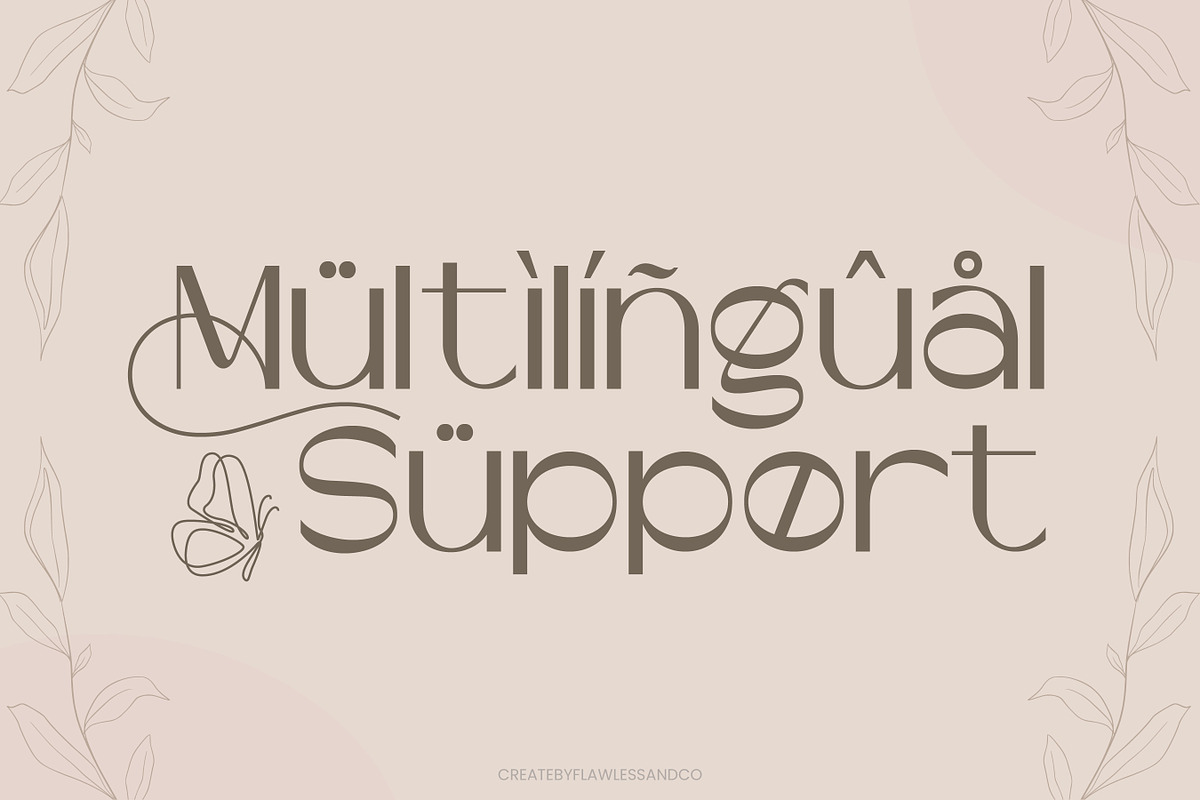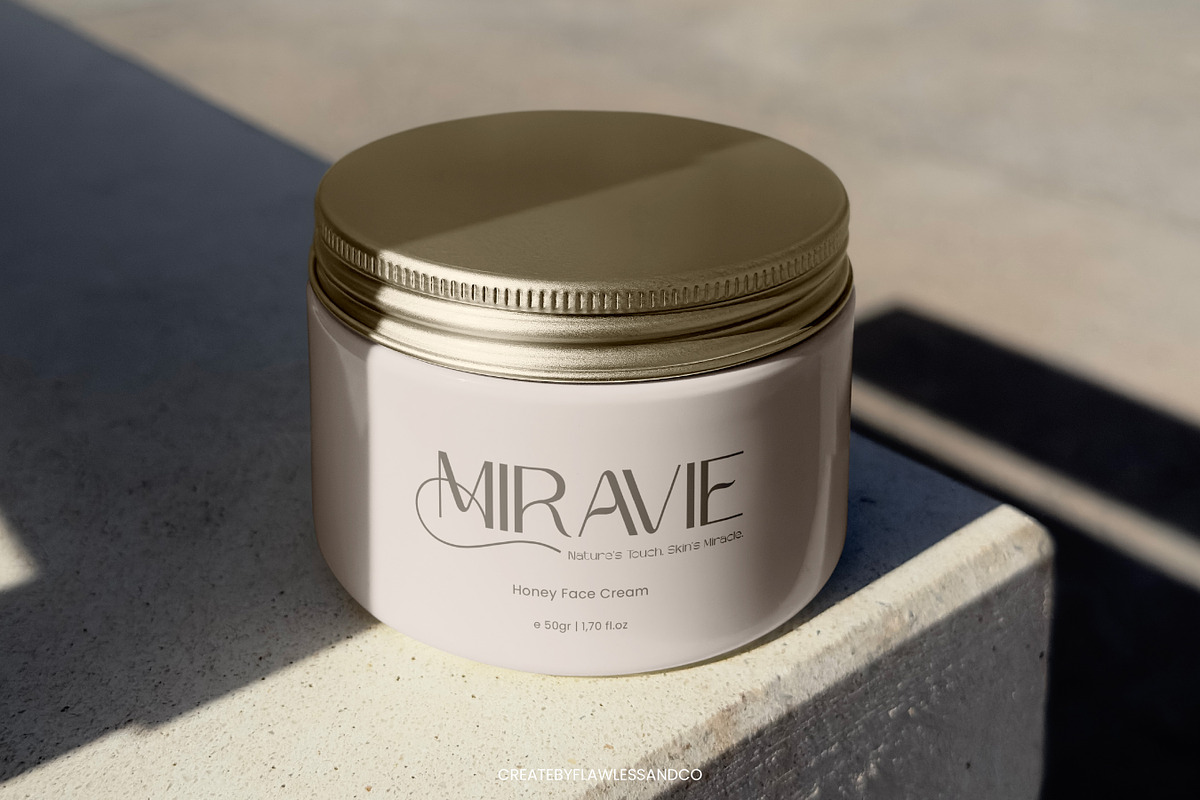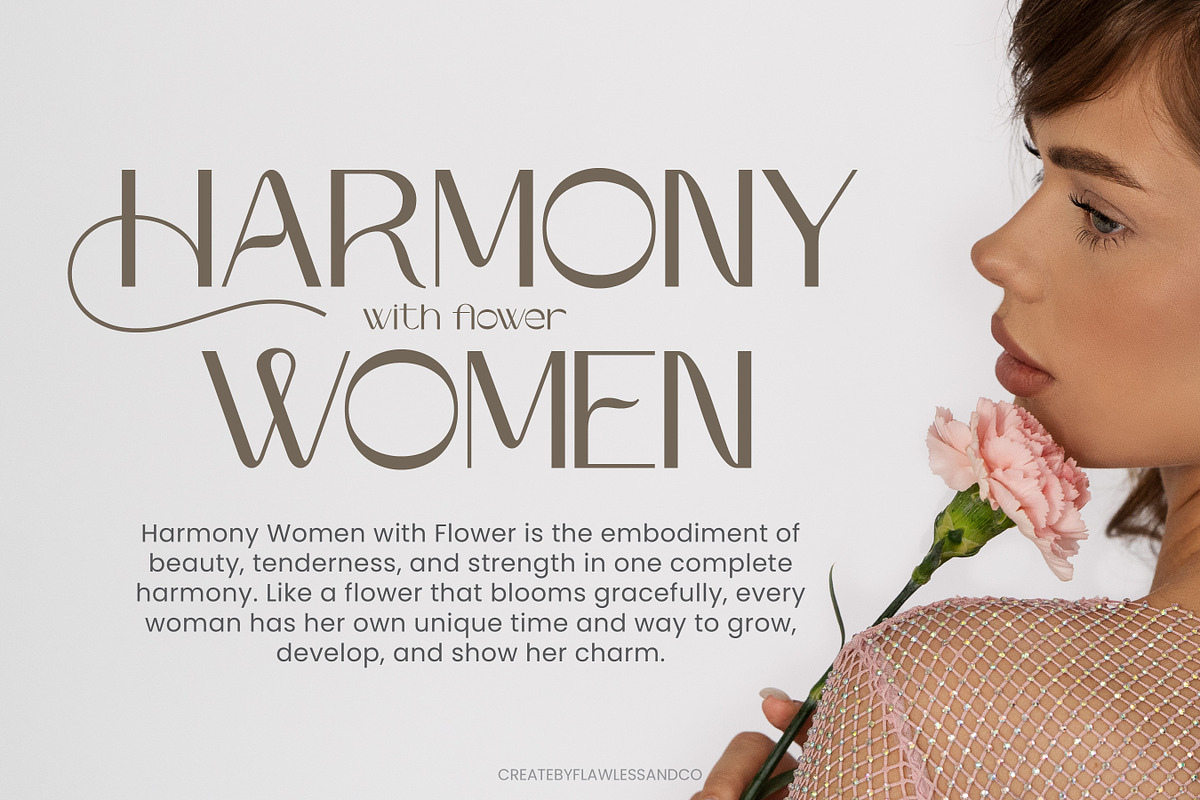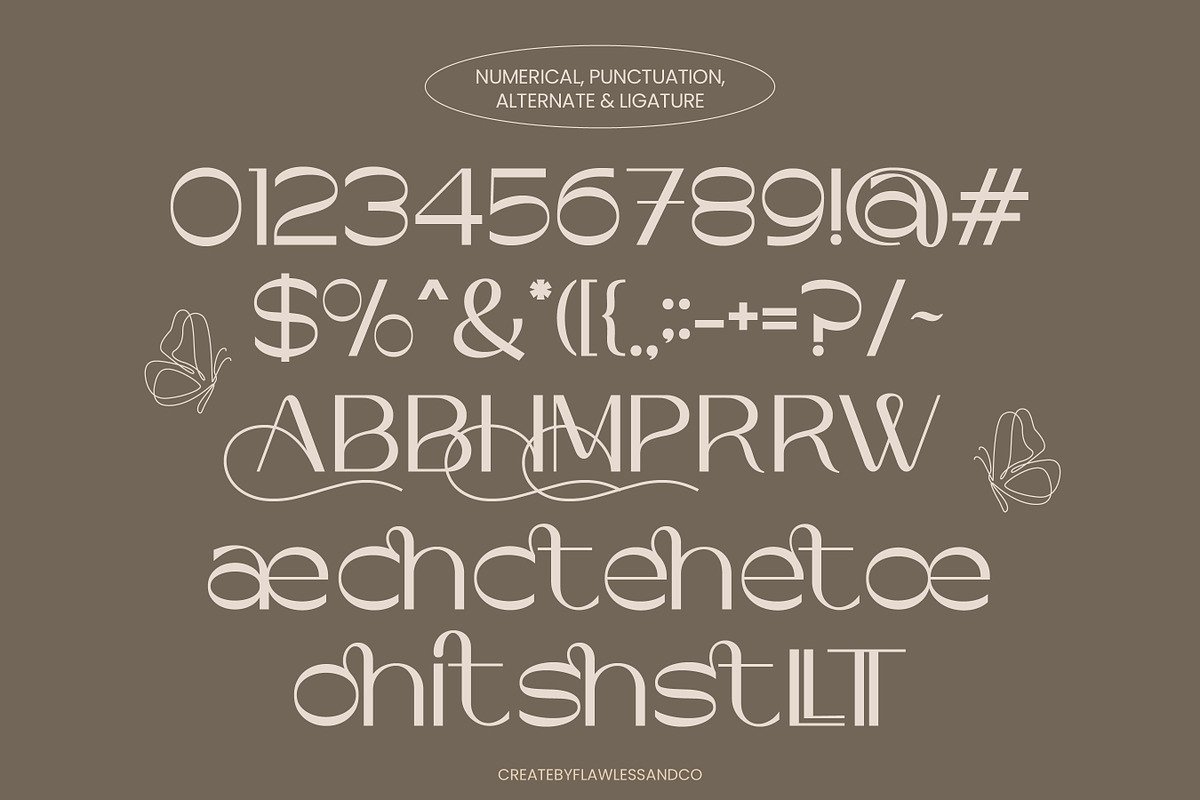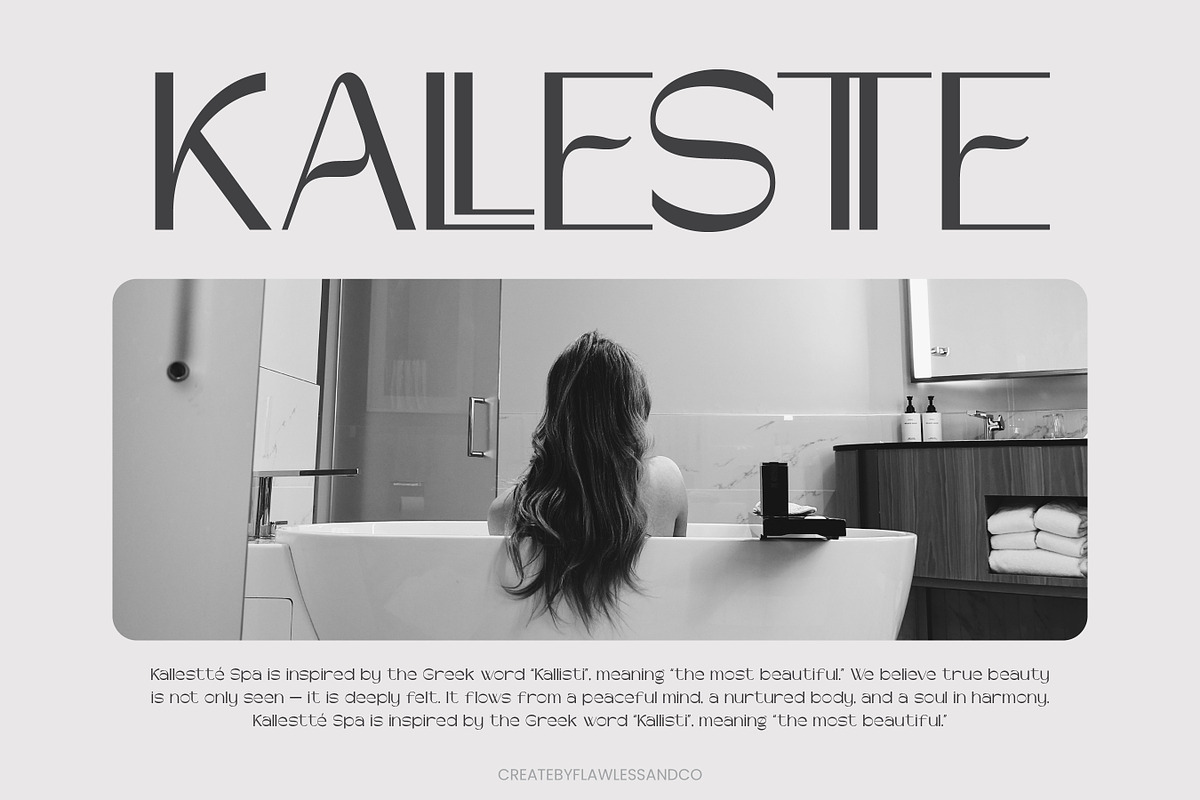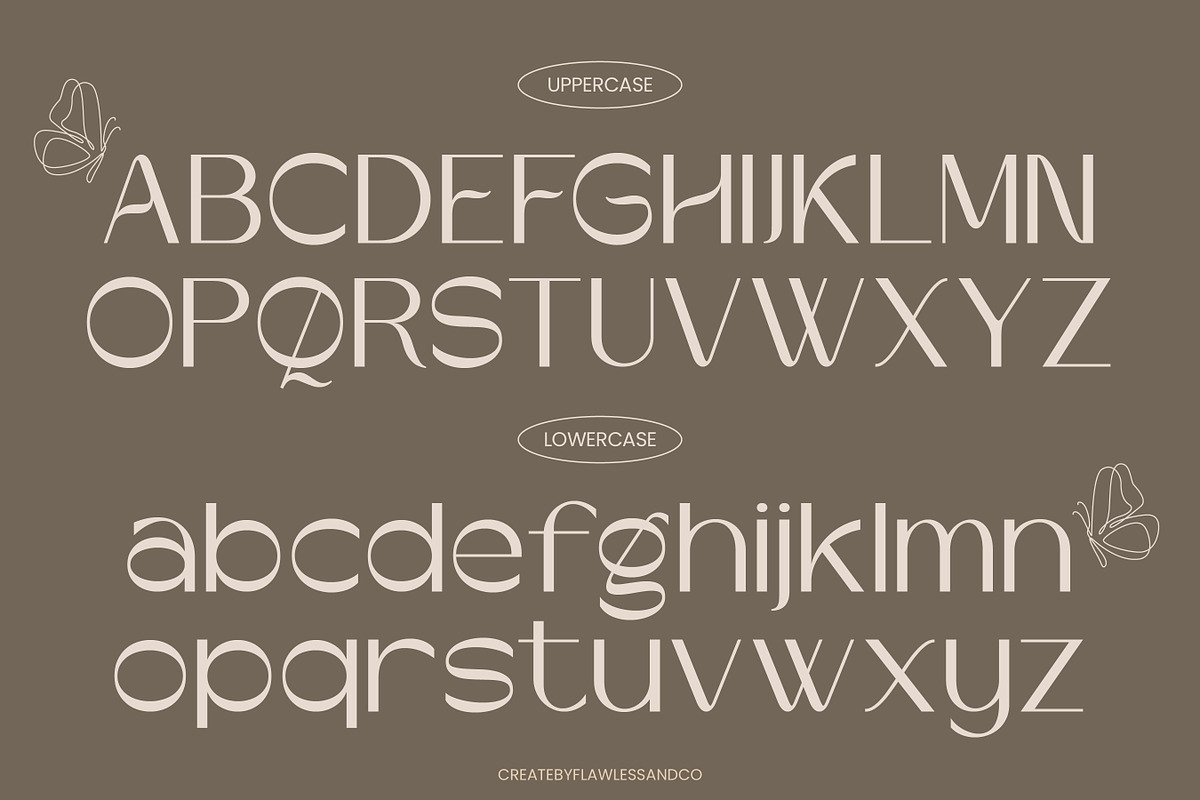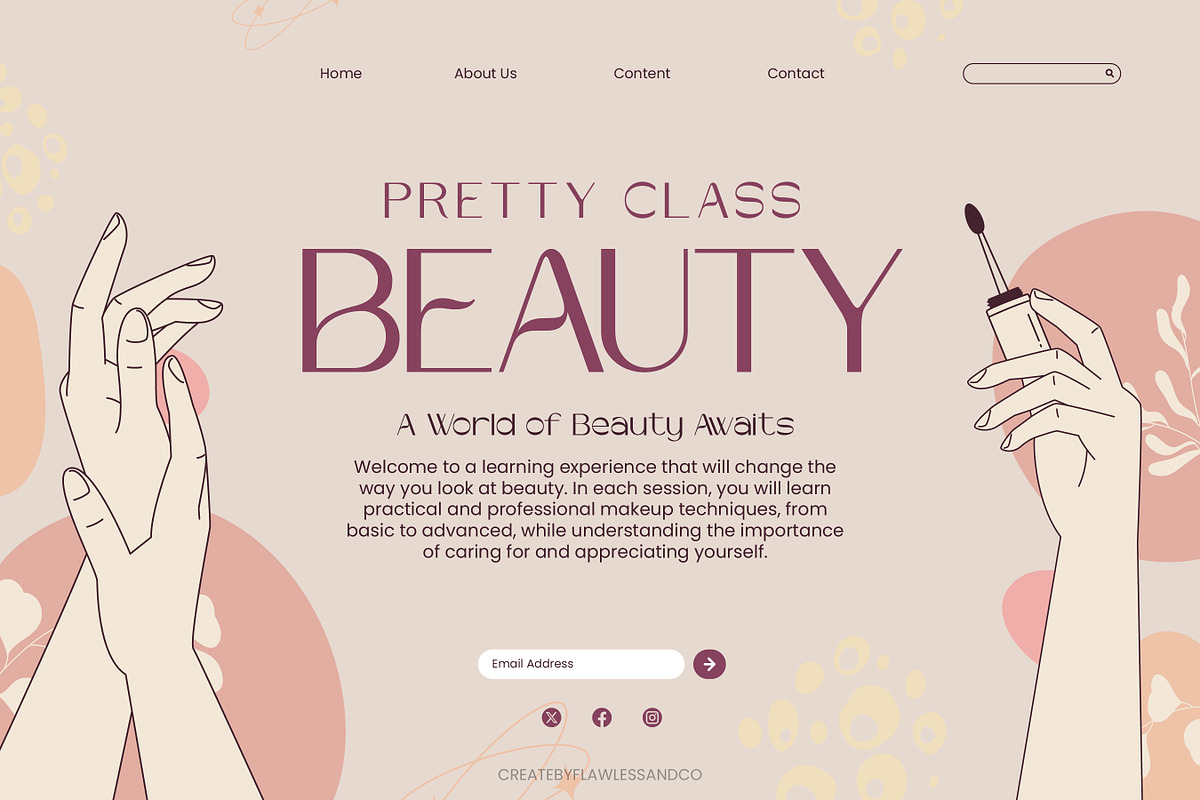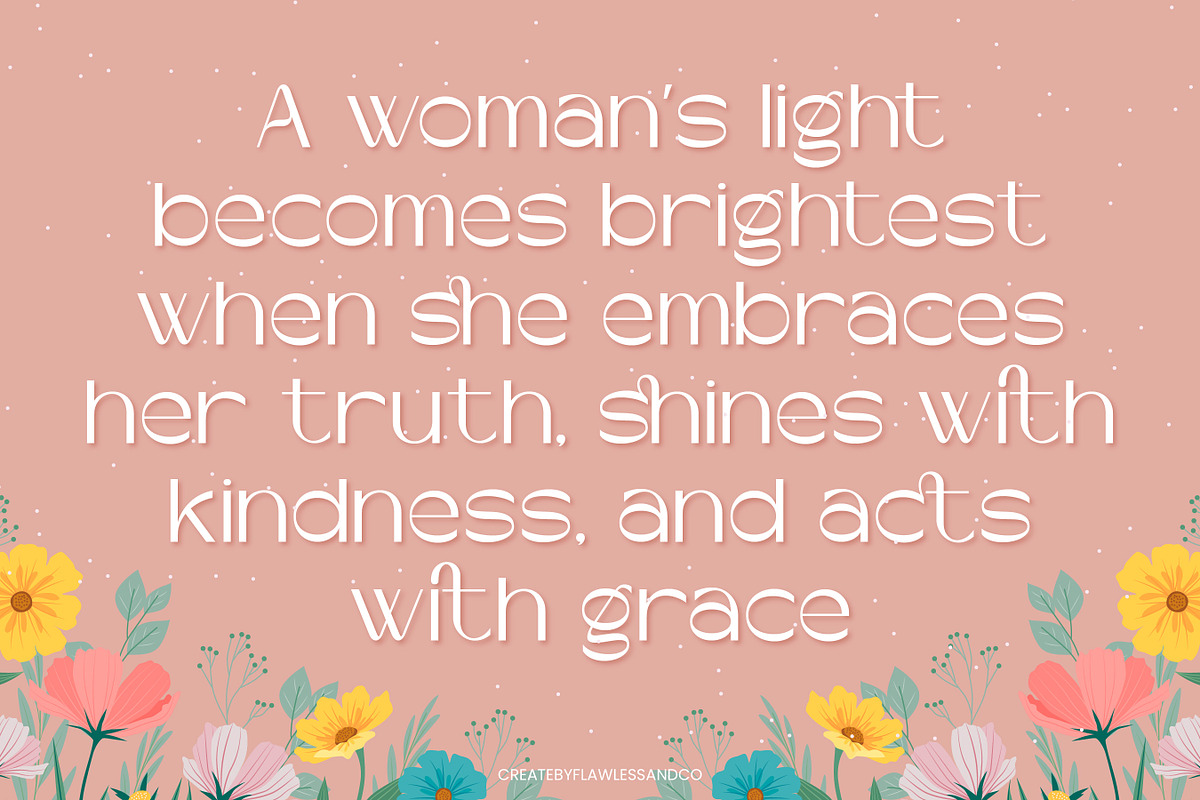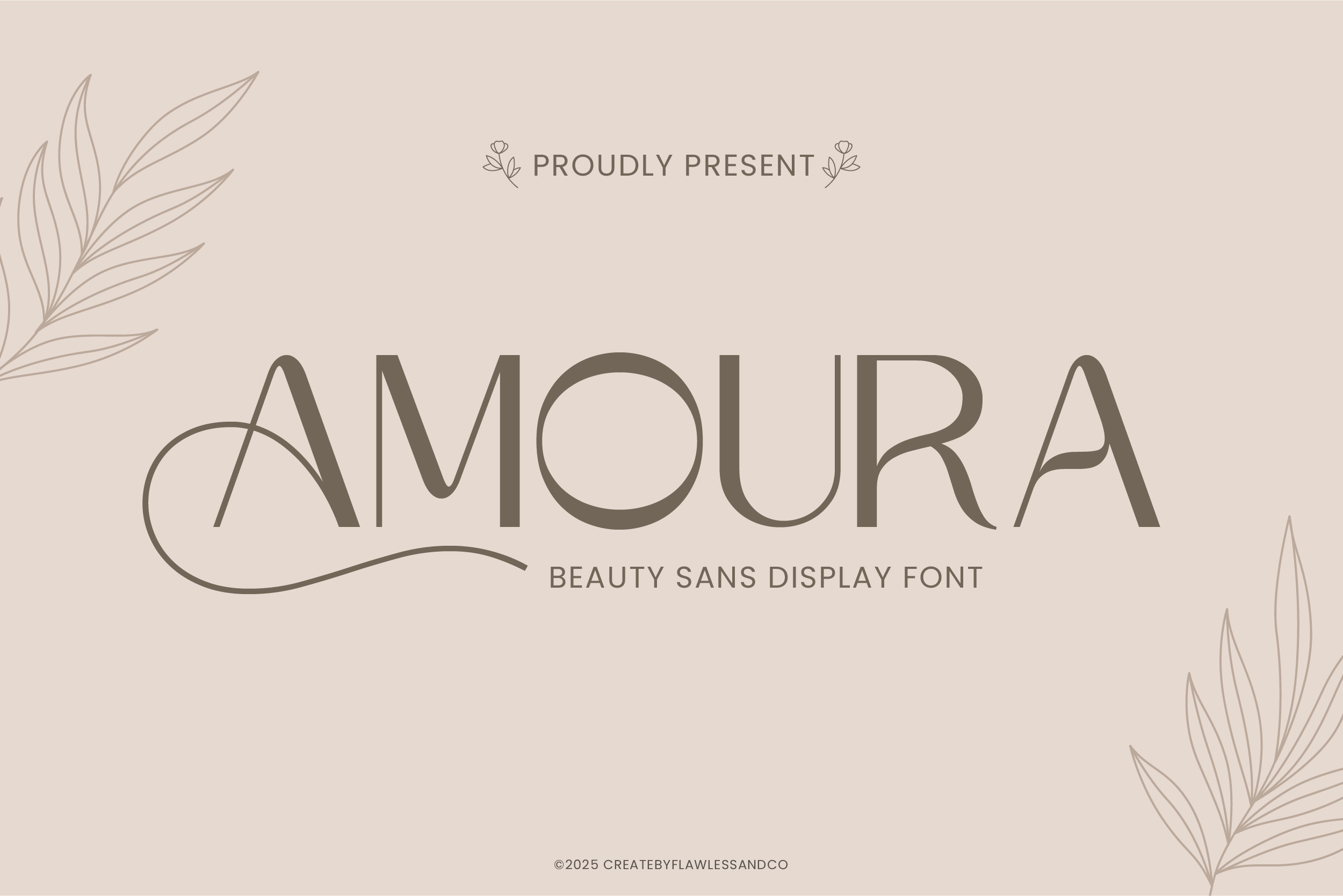
Amoura - Beauty Sans Serif Font
AMOURA - Beauty Sans Serif Font
AMOURA is a refined sans display font that embodies elegance, softness, and modern femininity. With graceful curves and delicate alternates, every letter flows like a poetic rhythm—perfect for capturing attention in beauty, fashion, and lifestyle designs. Its clean and stylish form brings a touch of sophistication, making AMOURA a go-to choice for creators seeking charm and refinement in their visual storytelling.
Who Should Use AMOURA?
AMOURA is made for designers, brands, and creatives who want to bring elegance and modern beauty into their work.
This font is perfect for:
- Beauty brands & skincare packaging
- Fashion labels and editorial layouts
- Wedding invitations & stationery design
- Elegant logos and personal branding
- Luxury packaging and cosmetics design
- Feminine social media content & quote posts
- Editorial layouts & lifestyle magazines
- Lifestyle blogs and digital publications
A Must-Have Font for Brand Creators and Designers
Amoura is more than just a font — it's an expression of elegance. Designed for brand creators, beauty entrepreneurs, and designers who value softness and sophistication, this beauty sans display font adds a refined touch to logos, packaging, websites, and editorial visuals. With its graceful strokes and modern femininity, Amoura helps you craft visual stories that feel luxurious, delicate, and timeless.
Why Choose Amoura for Brand and Logo Projects?
Amoura is the perfect choice for brands that want to embody elegance, beauty, and grace. Its clean yet artistic letterforms make it ideal for high-end beauty logos, boutique branding, luxury packaging, and feminine identity design. Whether you're crafting a logo for a spa, skincare line, or fashion brand, Amoura delivers a timeless charm that feels both professional and enchanting.